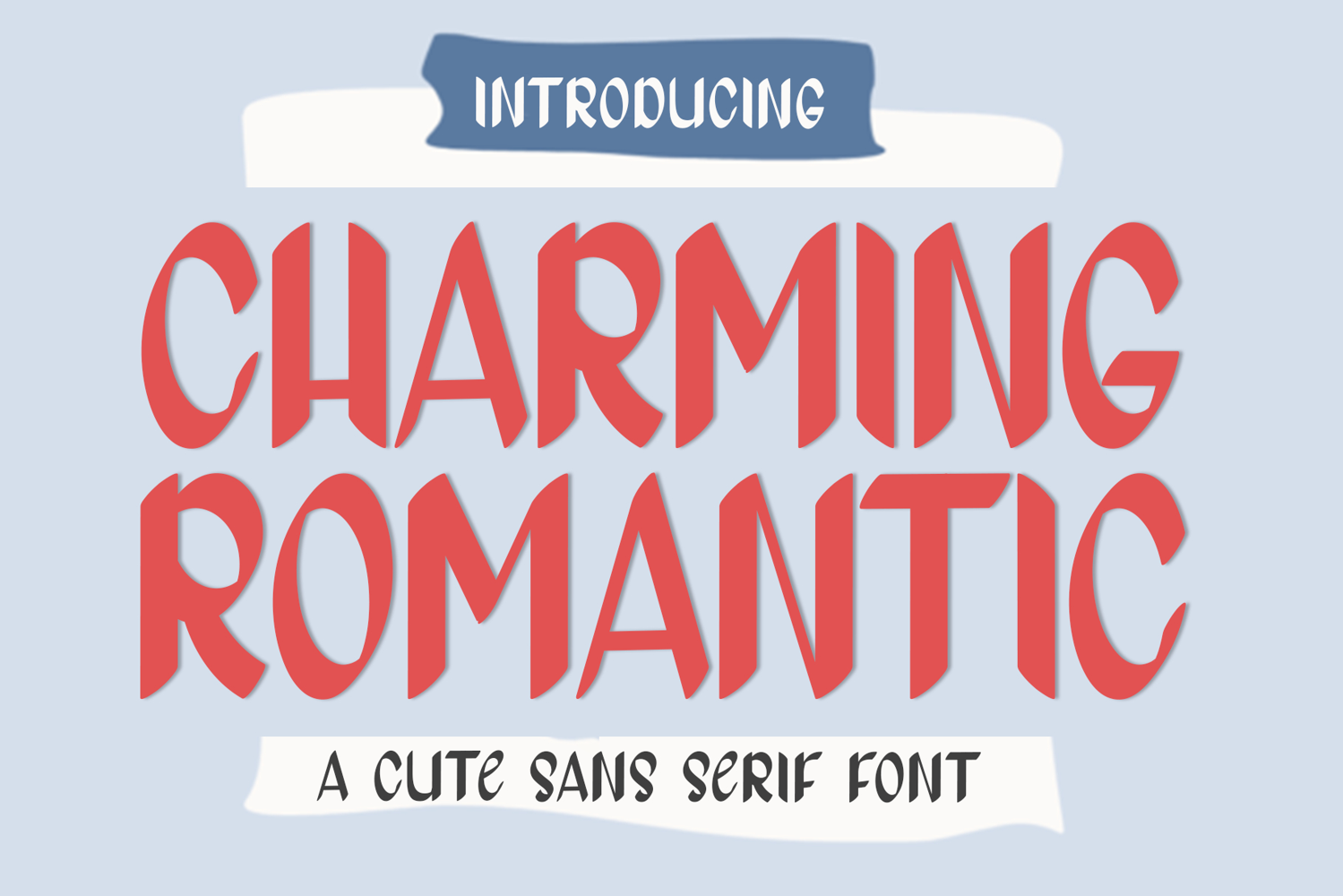
Charming Romantic
Charming Romantic is a beautiful and eye-catching font designed with a soft, unique touch. Its distinctive strokes give it a special character, making it meaningful and versatile for future use. With various characters, it’s perfect for design projects, crafts, and other creative works.